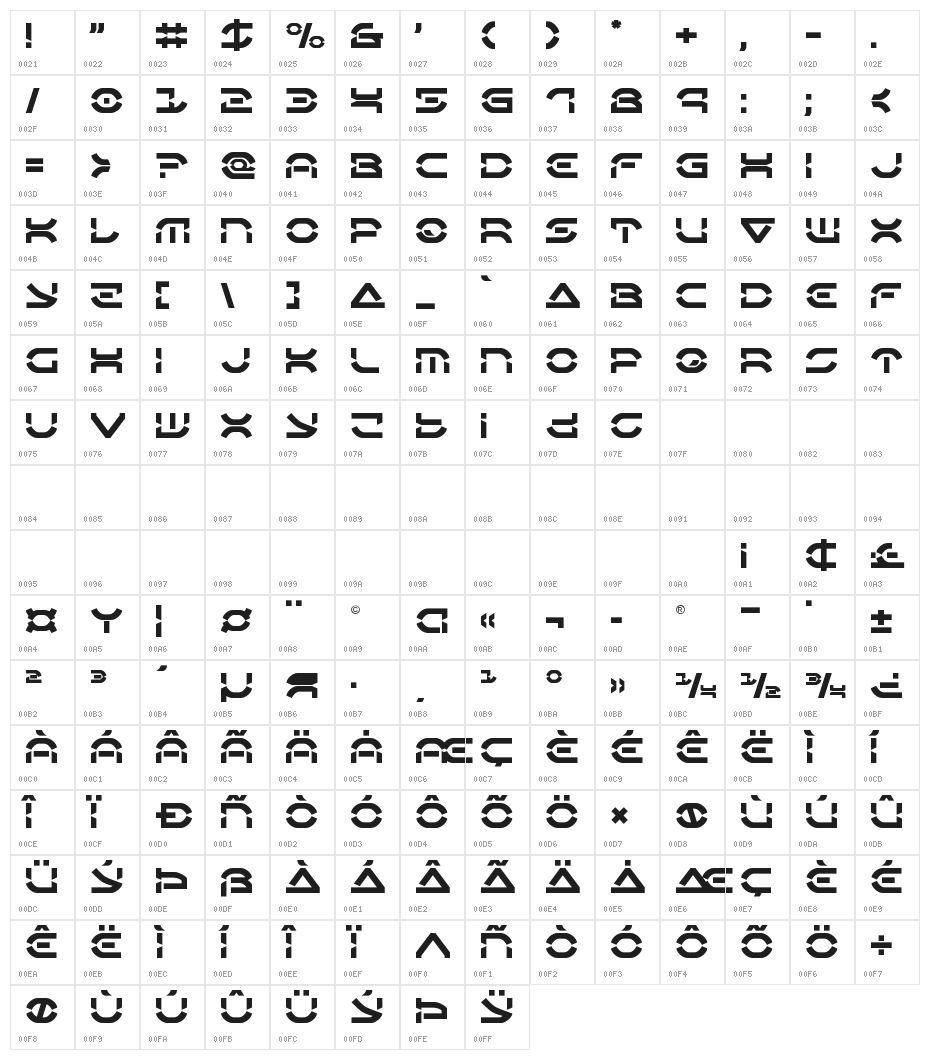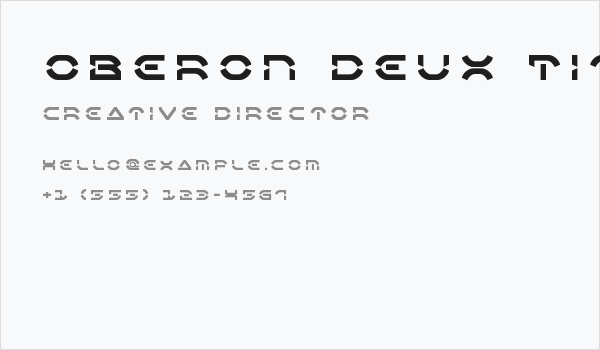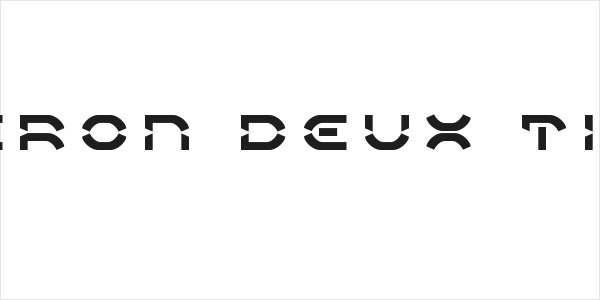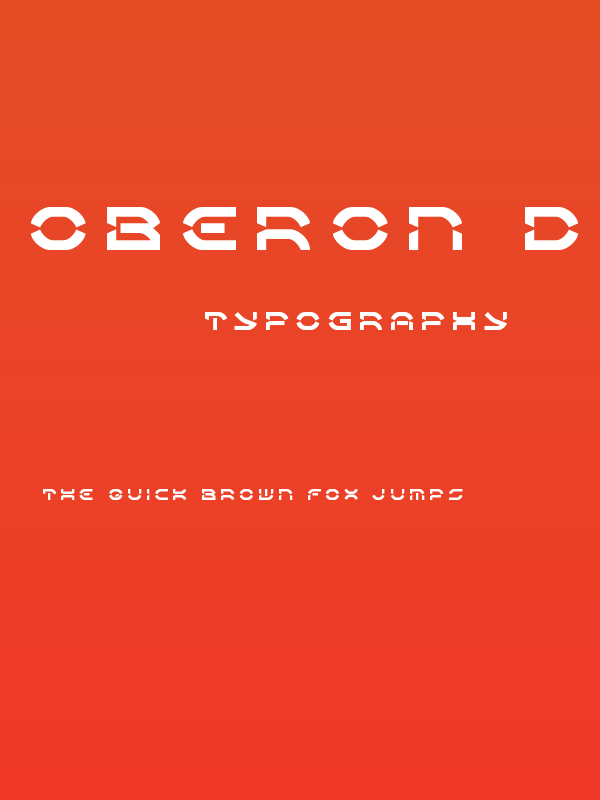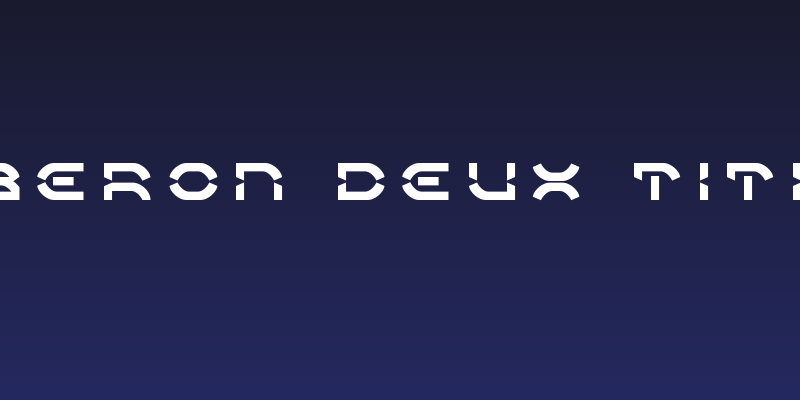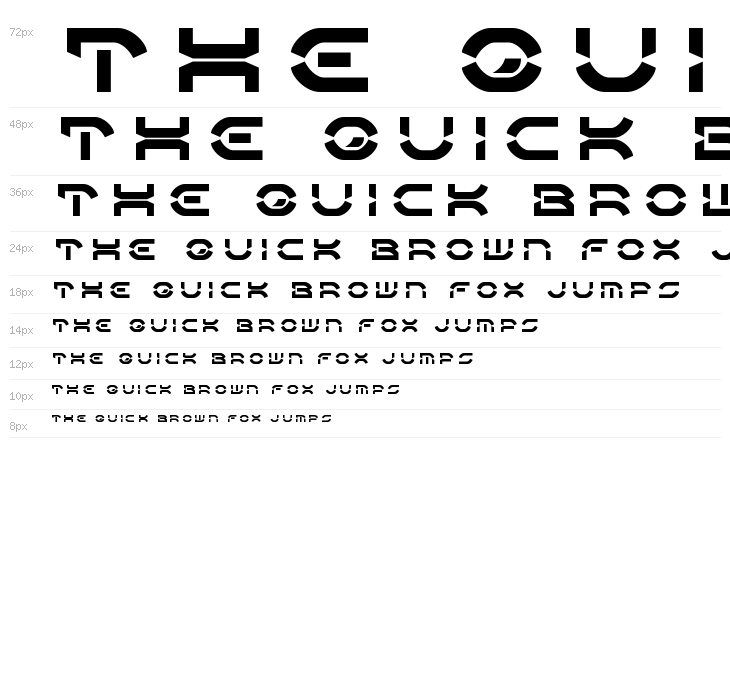
Oberon Deux Title Font
Oberon Deux Title Description
This font exhibits a futuristic and geometric design, characterized by its bold and angular shapes. The letters are constructed with a combination of solid and cut-out sections, creating a stencil-like appearance. The uppercase and lowercase letters maintain a consistent style, with sharp edges and a uniform thickness throughout. The numerals and special characters follow the same design principles, ensuring a cohesive look across all elements. This font's unique style makes it stand out, offering a modern and edgy aesthetic that is both eye-catching and versatile.
Proposed ProjectsIdeal for sci-fi themed projects, technology branding, video game titles, and modern poster designs.